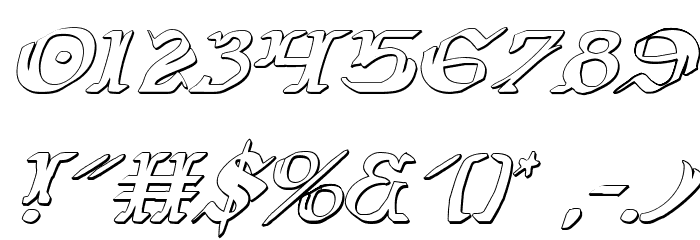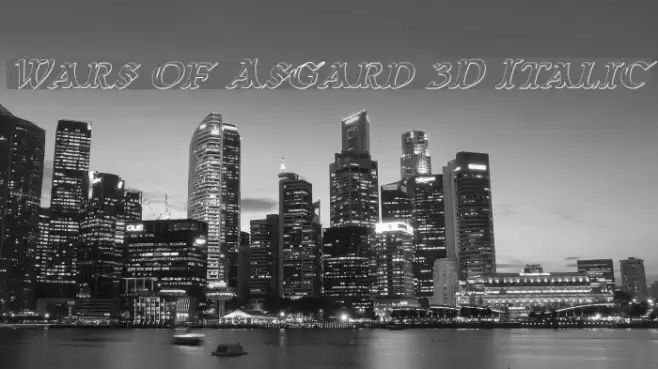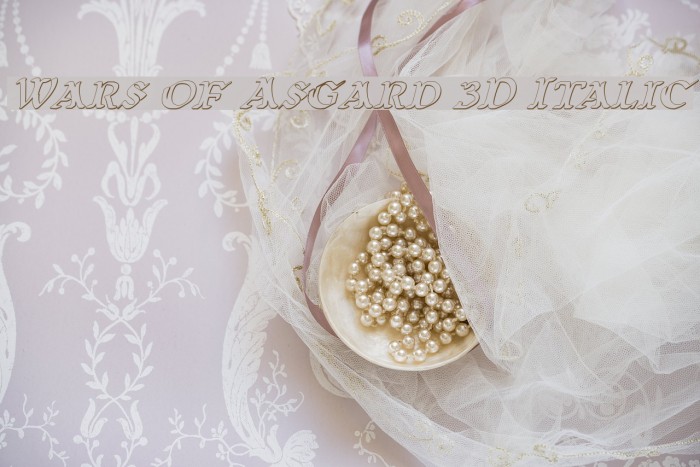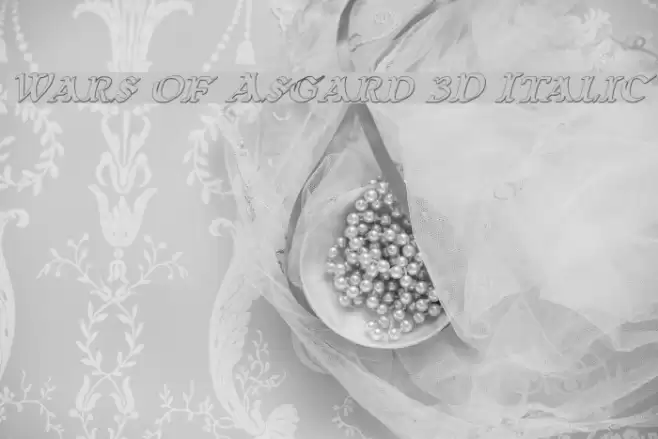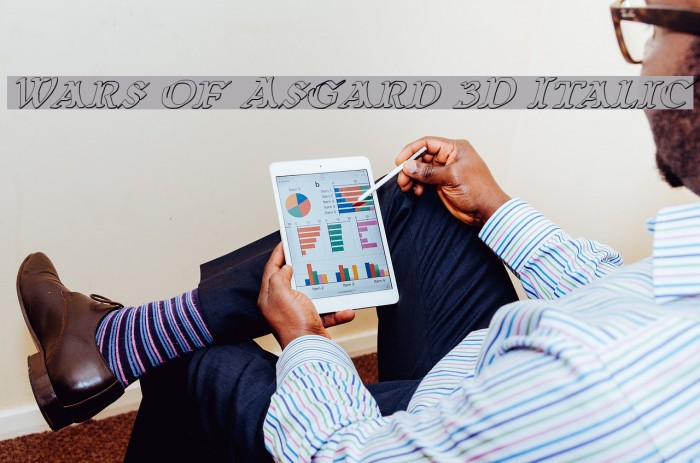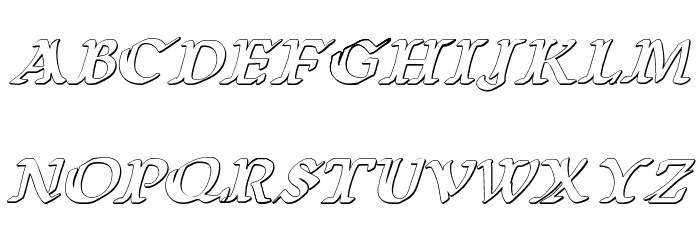
Wars of Asgard 3D Italic Font
Wars of Asgard 3D Italic Description
This font features a bold and dynamic 3D italic style, characterized by its strong, angular serifs and a sense of movement. The letters are designed with a shadow effect, giving them a three-dimensional appearance that adds depth and visual interest. The uppercase and lowercase letters maintain a consistent style, with the uppercase being slightly more pronounced. The numbers and special characters are crafted to match the overall aesthetic, ensuring a cohesive look across all text elements. This font's unique style makes it stand out, offering a blend of modern design with a touch of classic serif elements.
| Proposed Projects | Ideal for video game titles, movie posters, or any project requiring a bold, impactful typeface. |